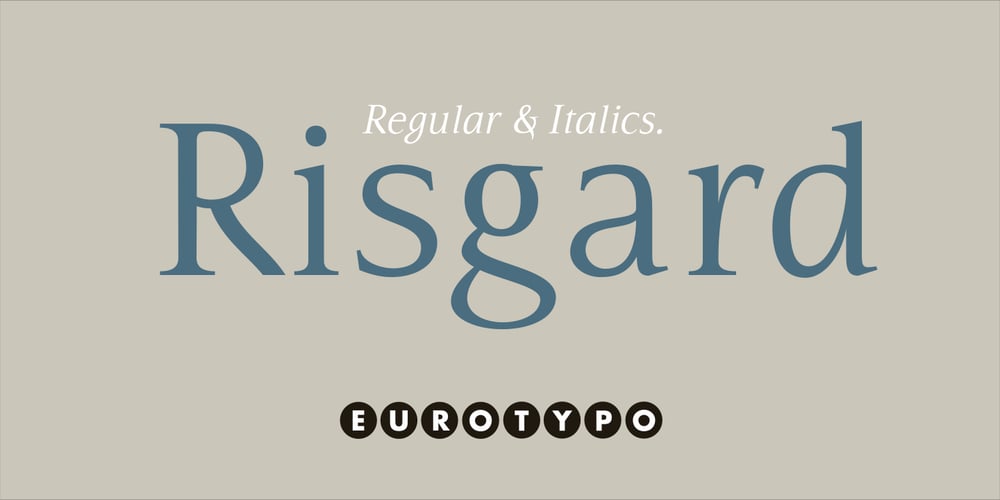
Risgard Font Family was designed by Olcar Alcaide and published by Eurotypo. Risgard contains 4 styles and family package options. Risgard is a sophisticated and contemporary font family designed to bring style, readability, and versatility to a wide range of design projects. Perfectly suited for magazines, print materials, packaging, and web pages, Risgard excels in both body text and display settings, making it an ideal choice for striking headlines, impactful titles, and engaging editorial layouts.With its refined serif details and carefully crafted weight variations, Risgard boasts a strong and distinctive personality. The font family includes two expertly designed weights, each accompanied by a matching Italic version. These Italics add a touch of dynamism and elegance, allowing for greater creative expression and typographic contrast.